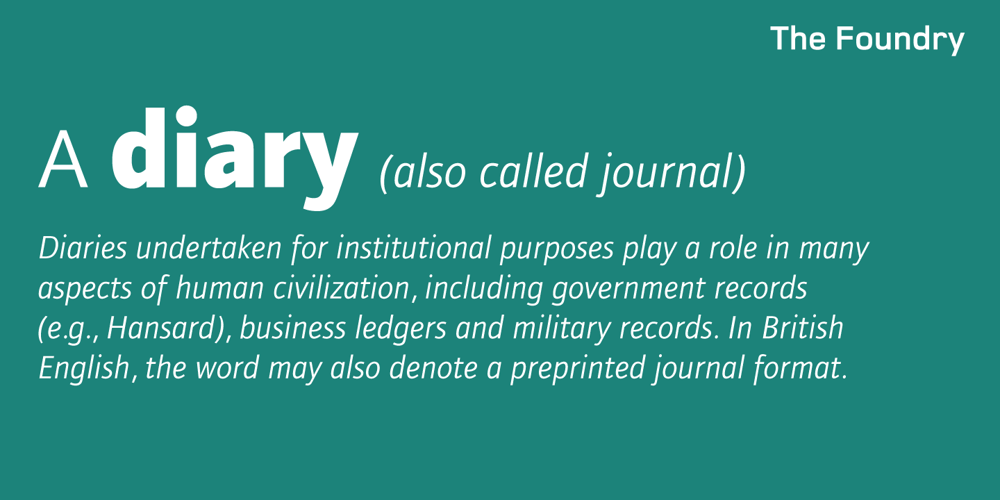
Foundry Journal
Foundry Journal font
Foundry Journal Font Family was designed by Freda Sack, David Quay and published by The Foundry. Foundry Journal contains 5 styles and family package options. Foundry Journal is appropriately named for its intended purpose in journals, magazines and publications, where narrow column measures require a more condensed typeface, for the most economic use of page space. Foundry Journal has a characteristic subtle angularity, accentuated by well-defined curve to stem junctions, facilitating legibility and making it an ideal typeface when set at small point sizes.